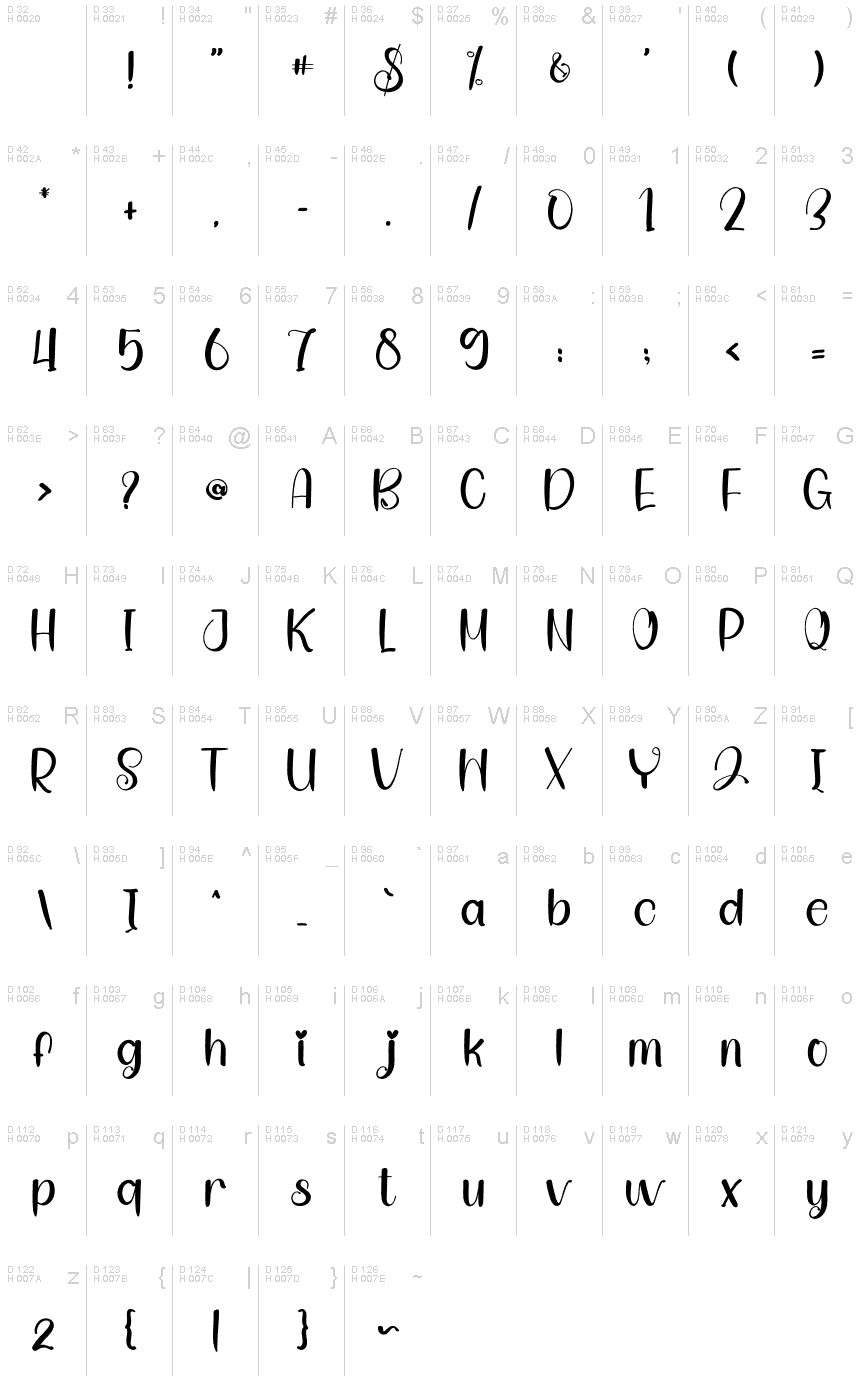
Bubbles Christmas
Bubbles Christmas, crafted by Inermedia Studio, stands out as a handwritten font that encapsulates the joy and warmth of the holiday season. With its playful yet elegant strokes, this typeface exudes a casual charm that is perfectly suited for crafting personalized Christmas cards, festive advertisements, and holiday-themed graphics. Its aesthetic appeal lies in the balance between whimsical flair and legible sophistication, making it a versatile addition to any designer's toolkit.
The flowing letters of Bubbles Christmas offer an invitingly soft touch to any project, while its distinctive character shapes ensure your designs will leave a lasting impression. Whether used for event invitations, seasonal promotions or packaging design, this font's style harmoniously blends with imagery that celebrates the spirit of Christmas. Embrace the merriment of Bubbles Christmas and let your creative endeavors sparkle with festive cheer!